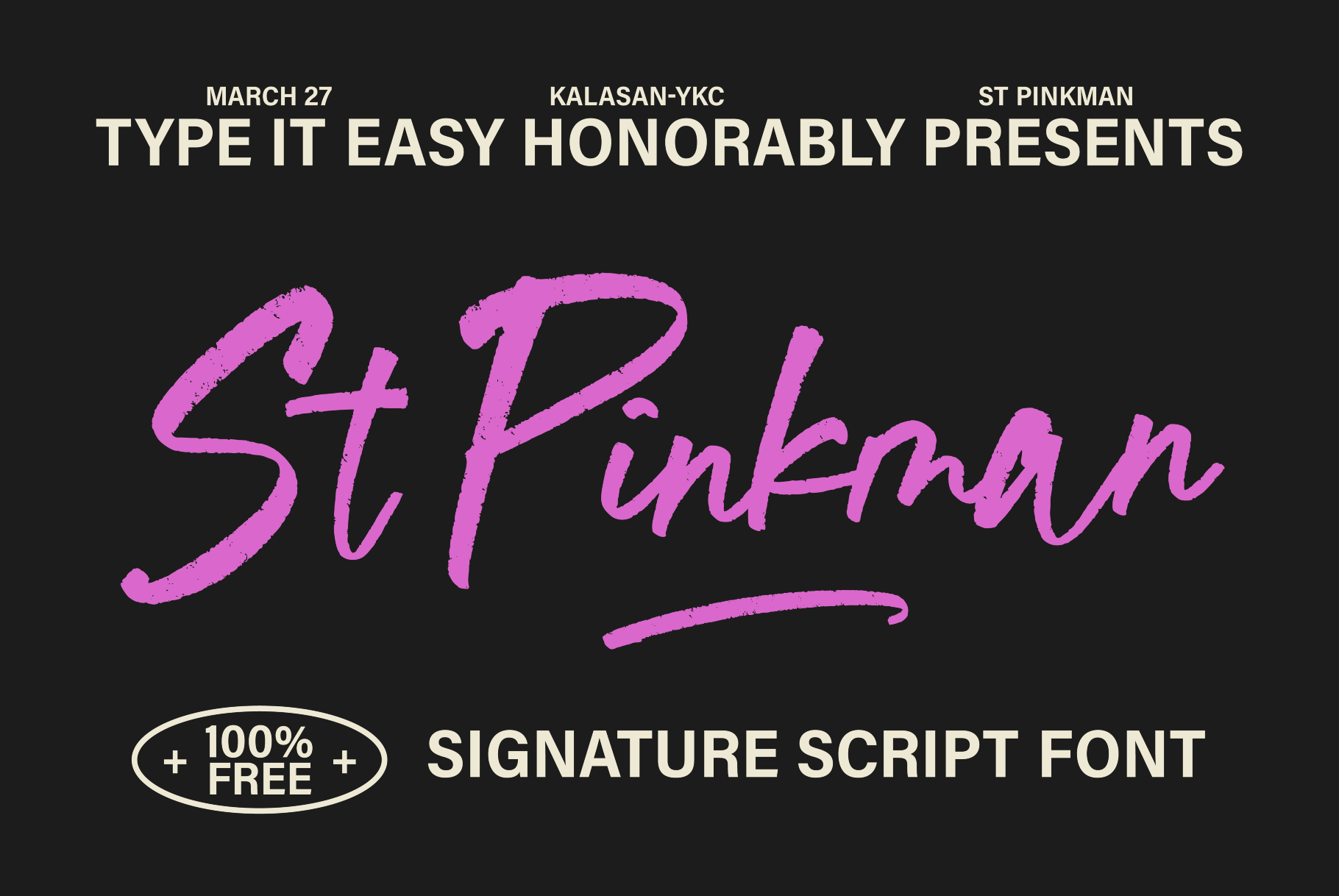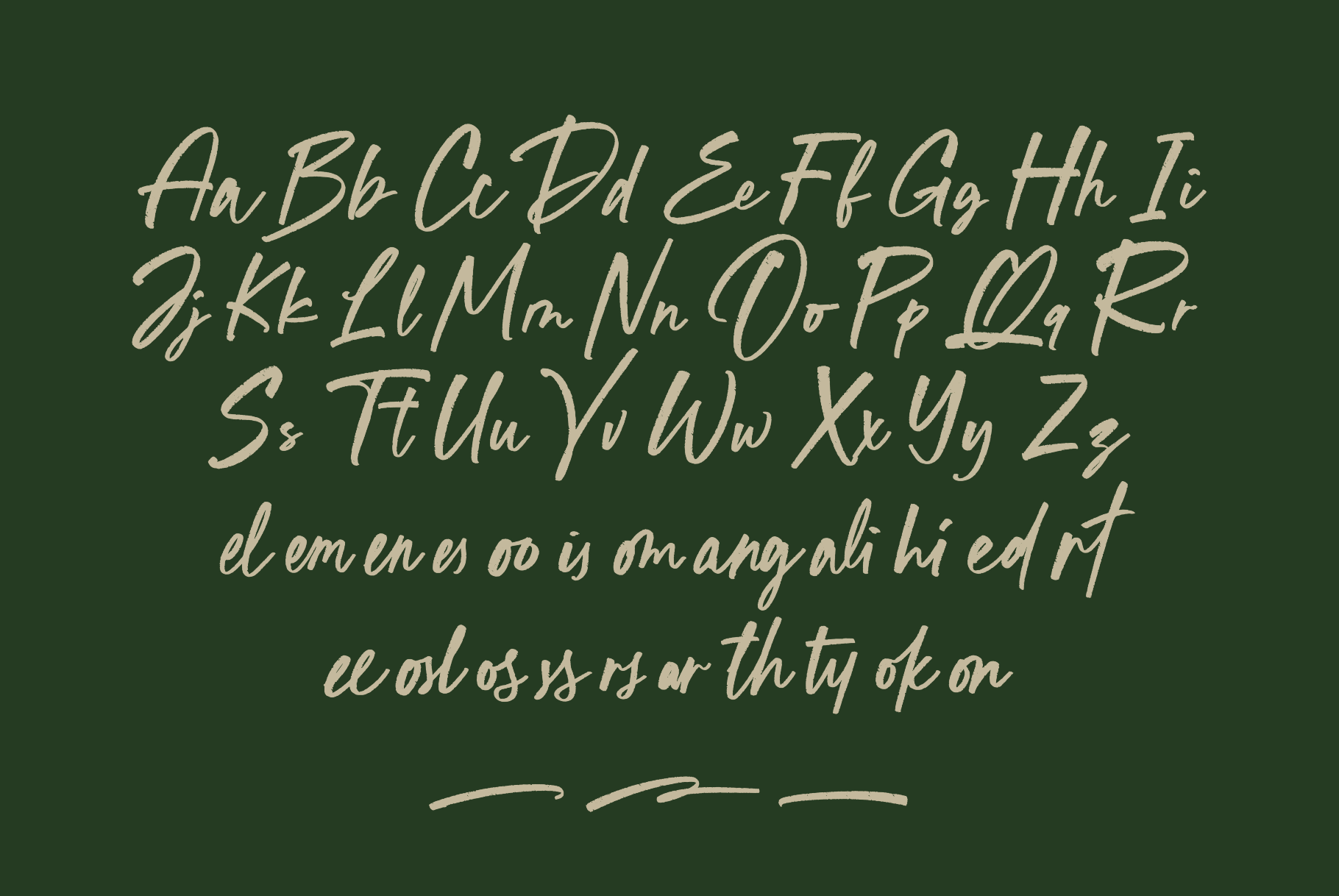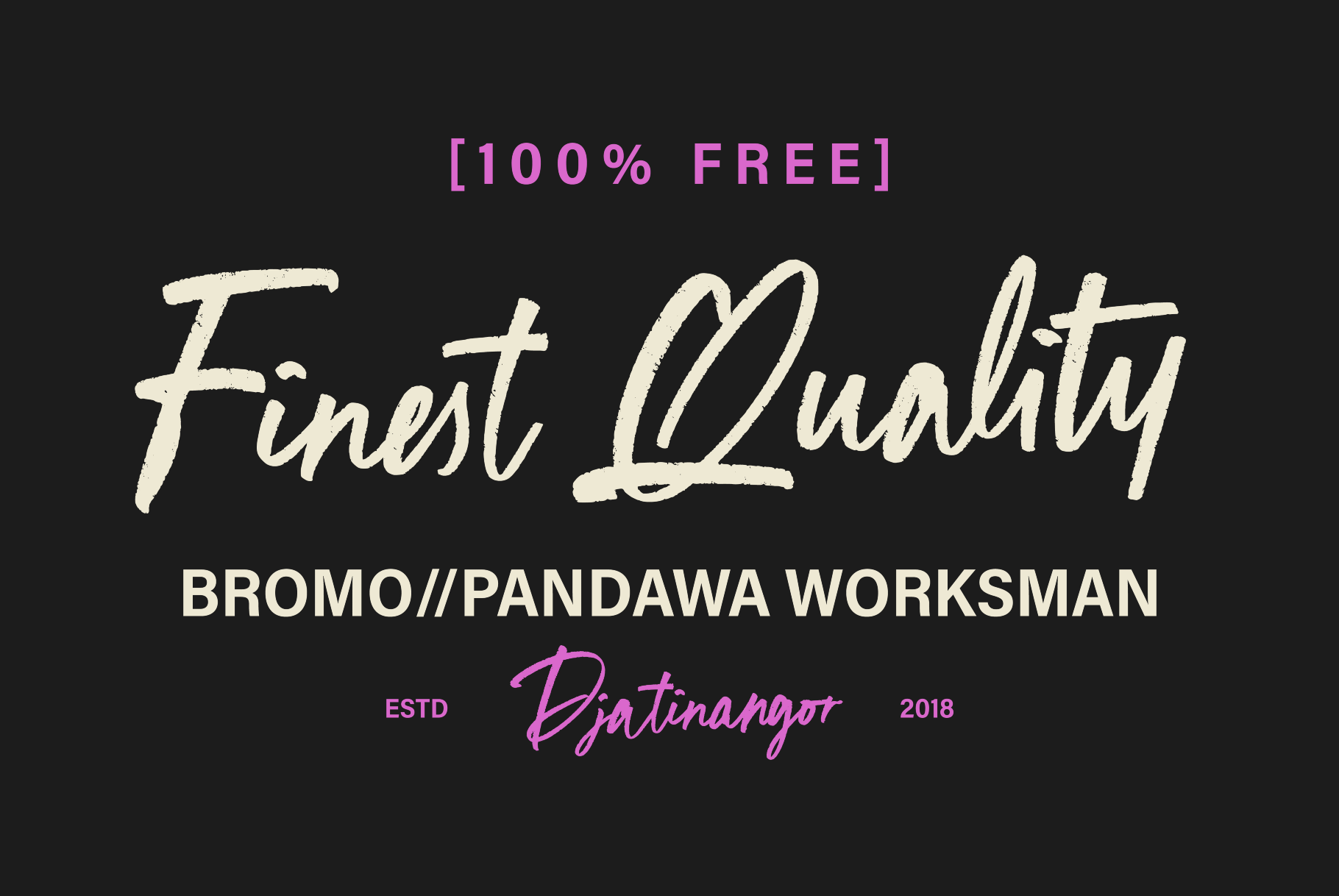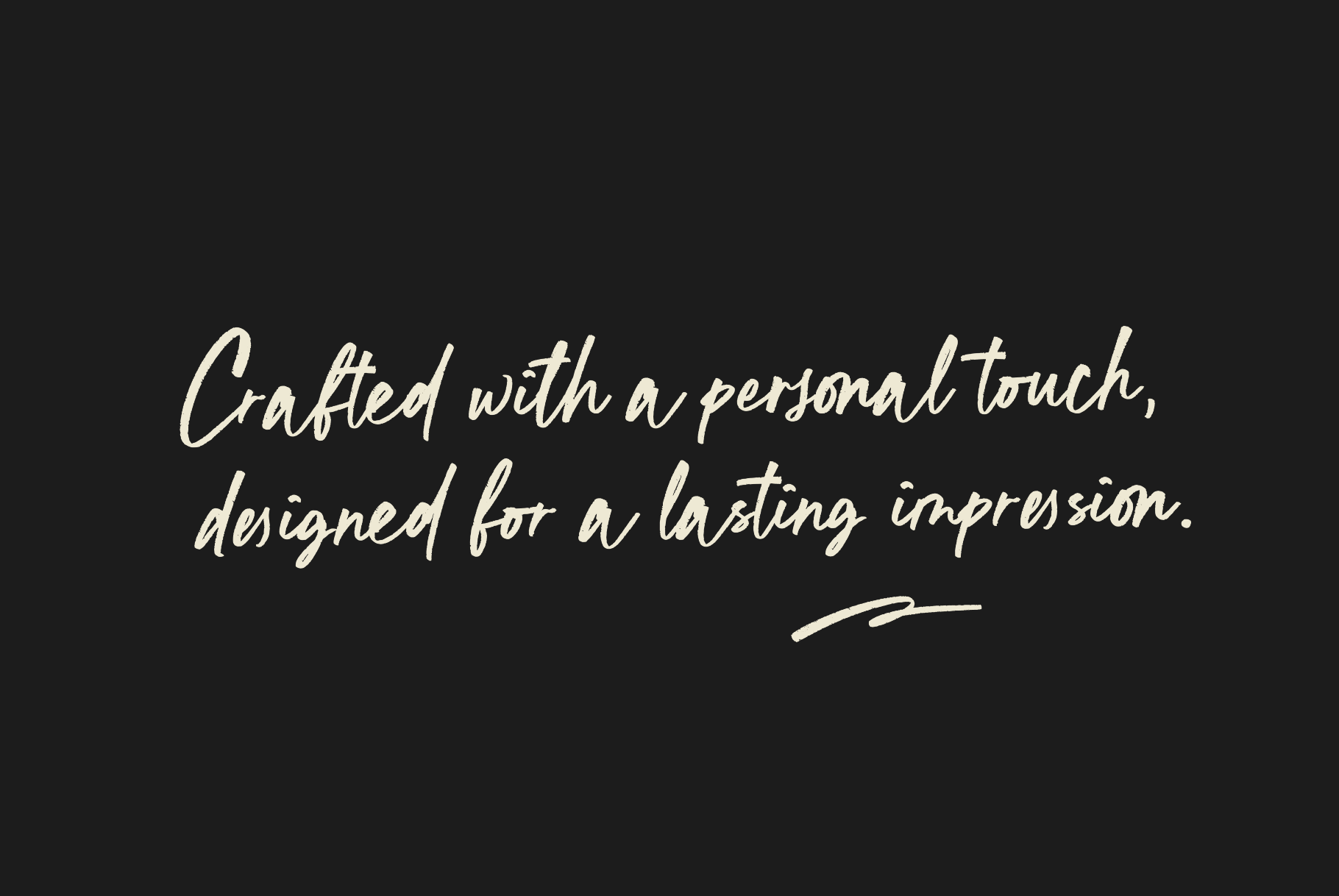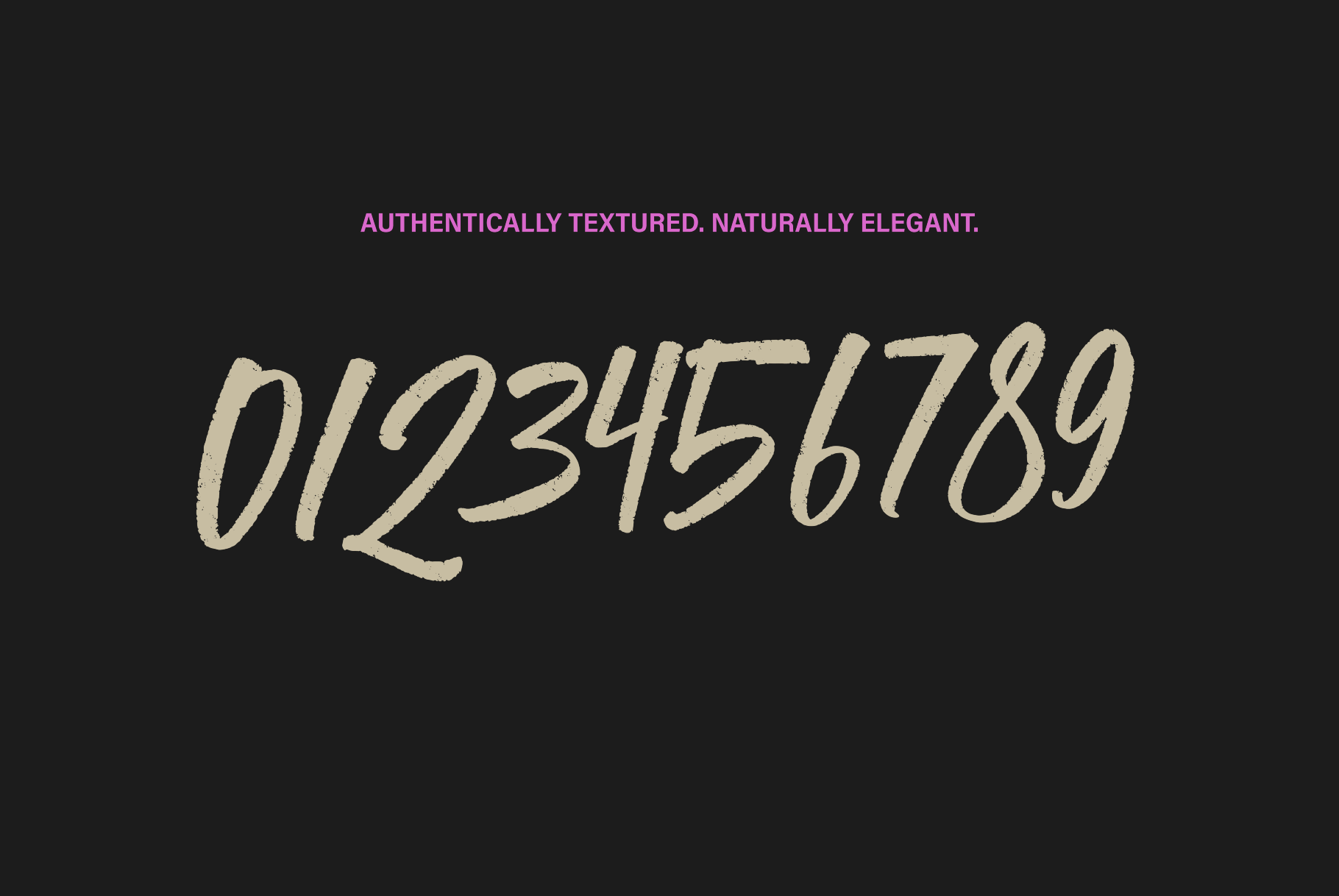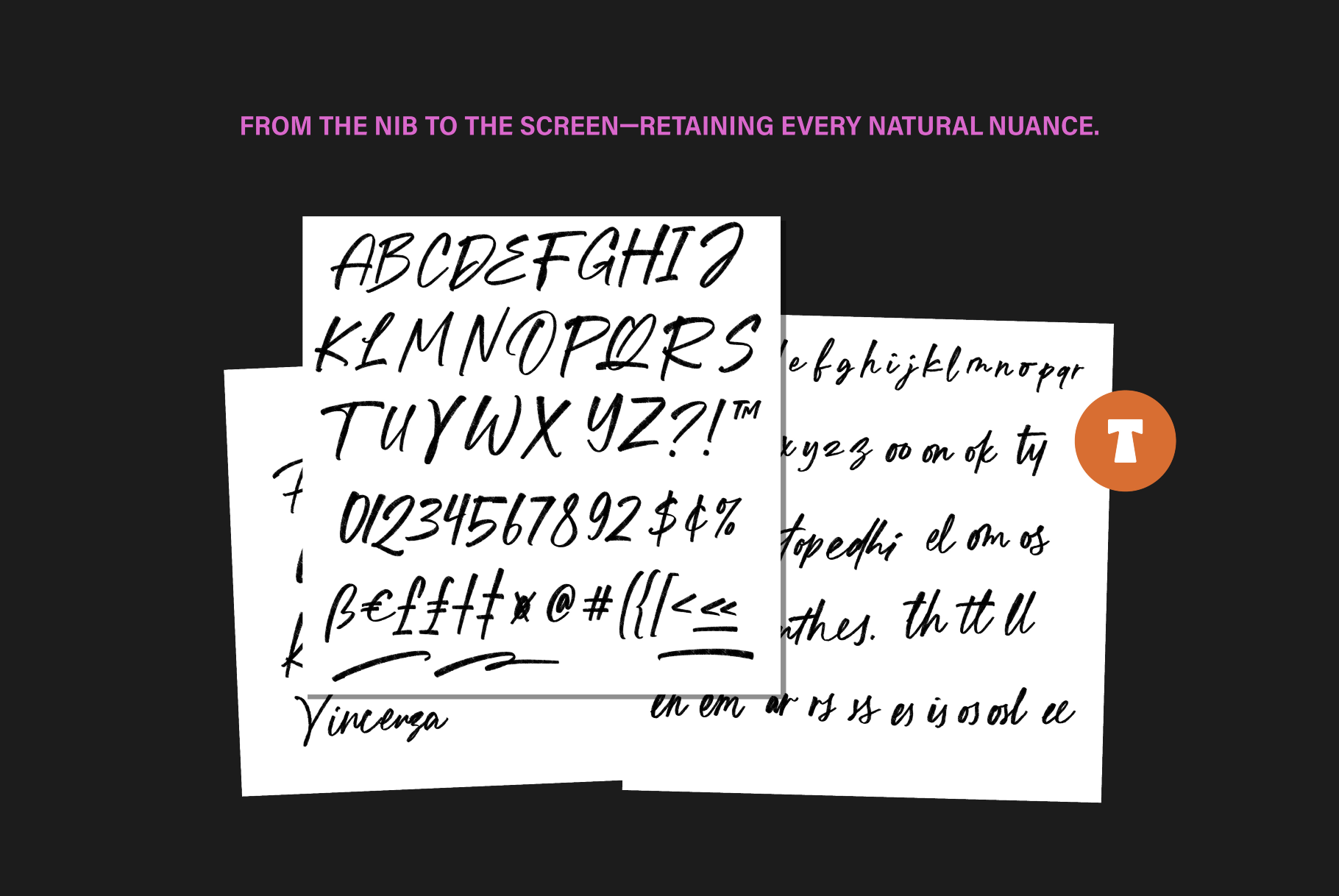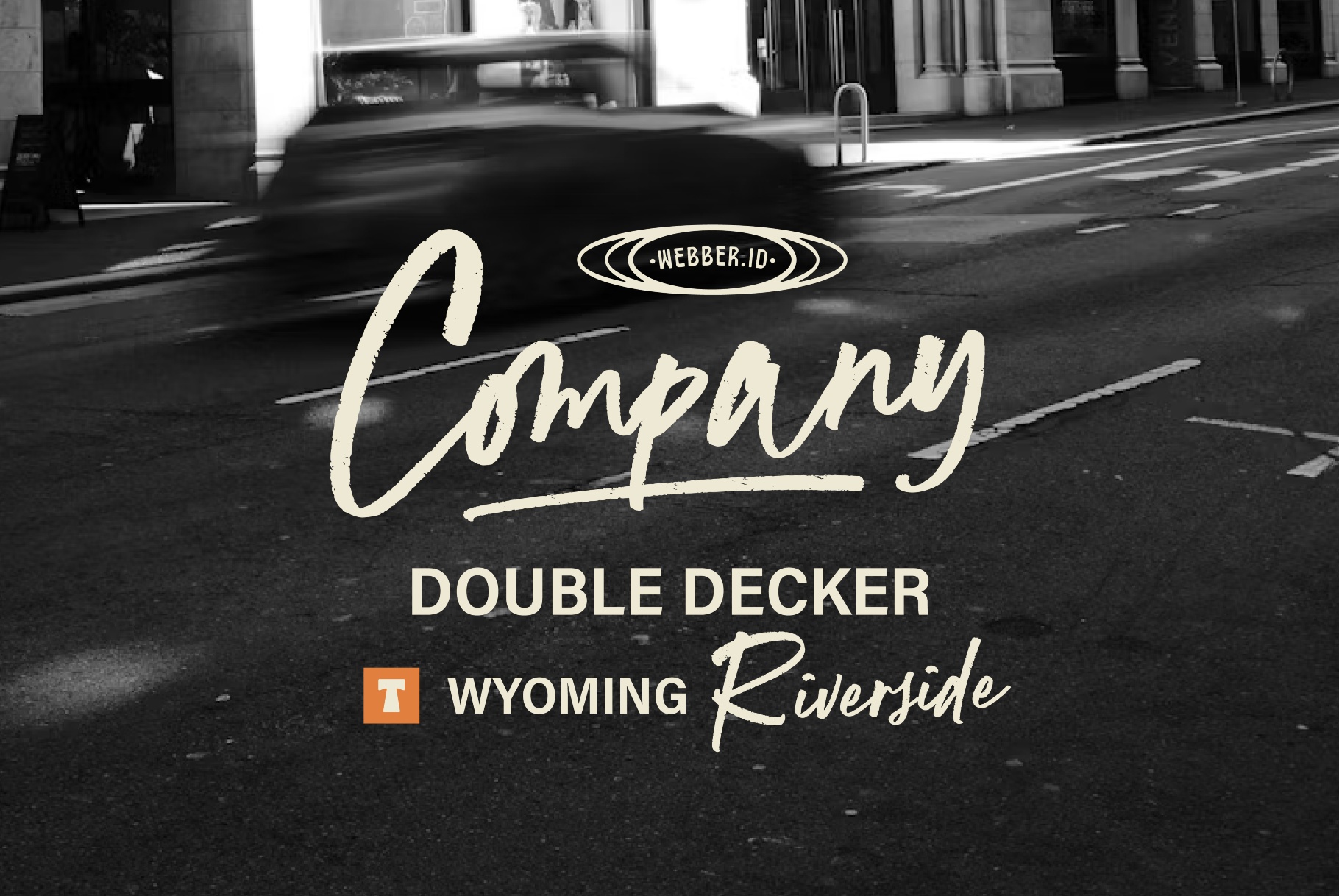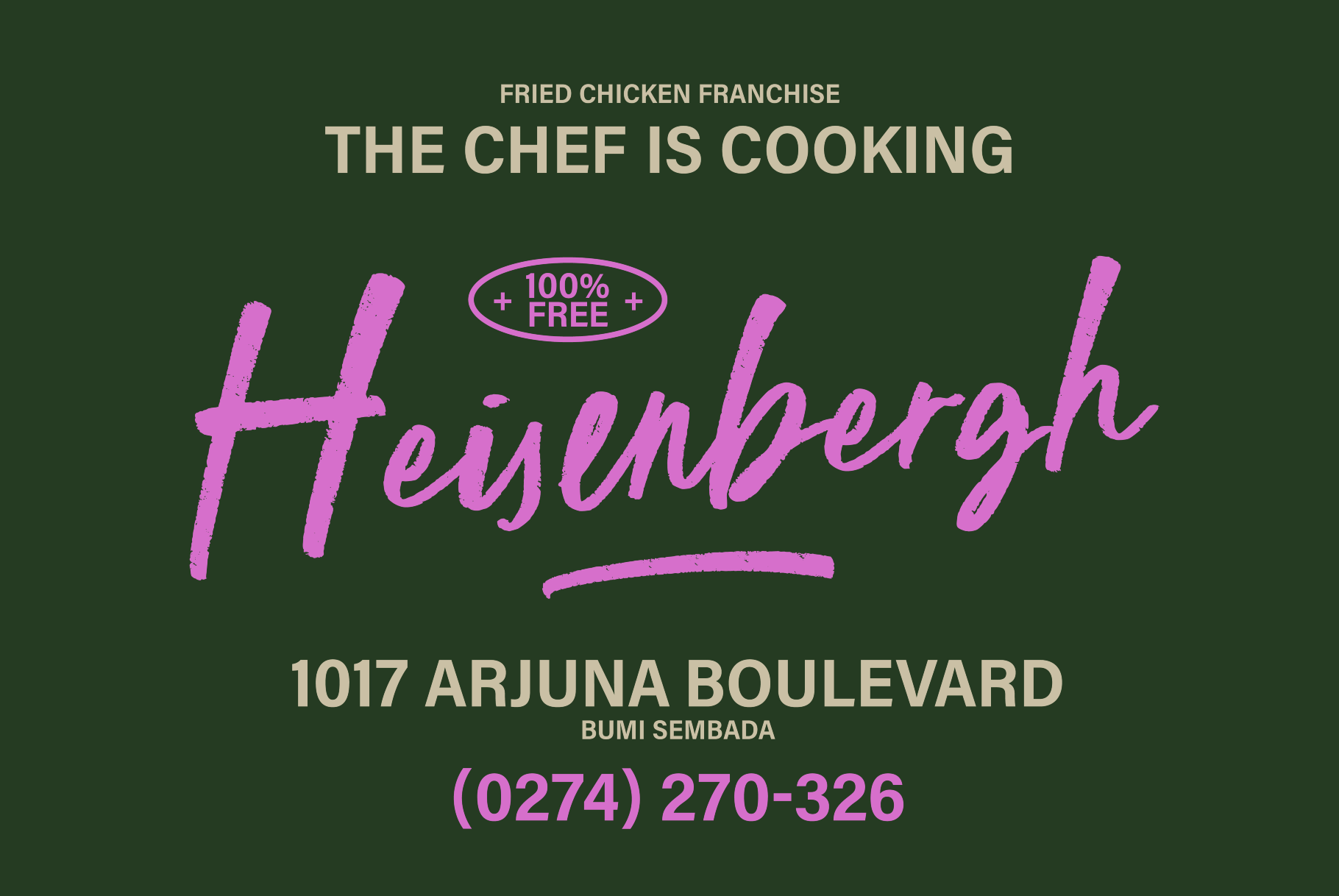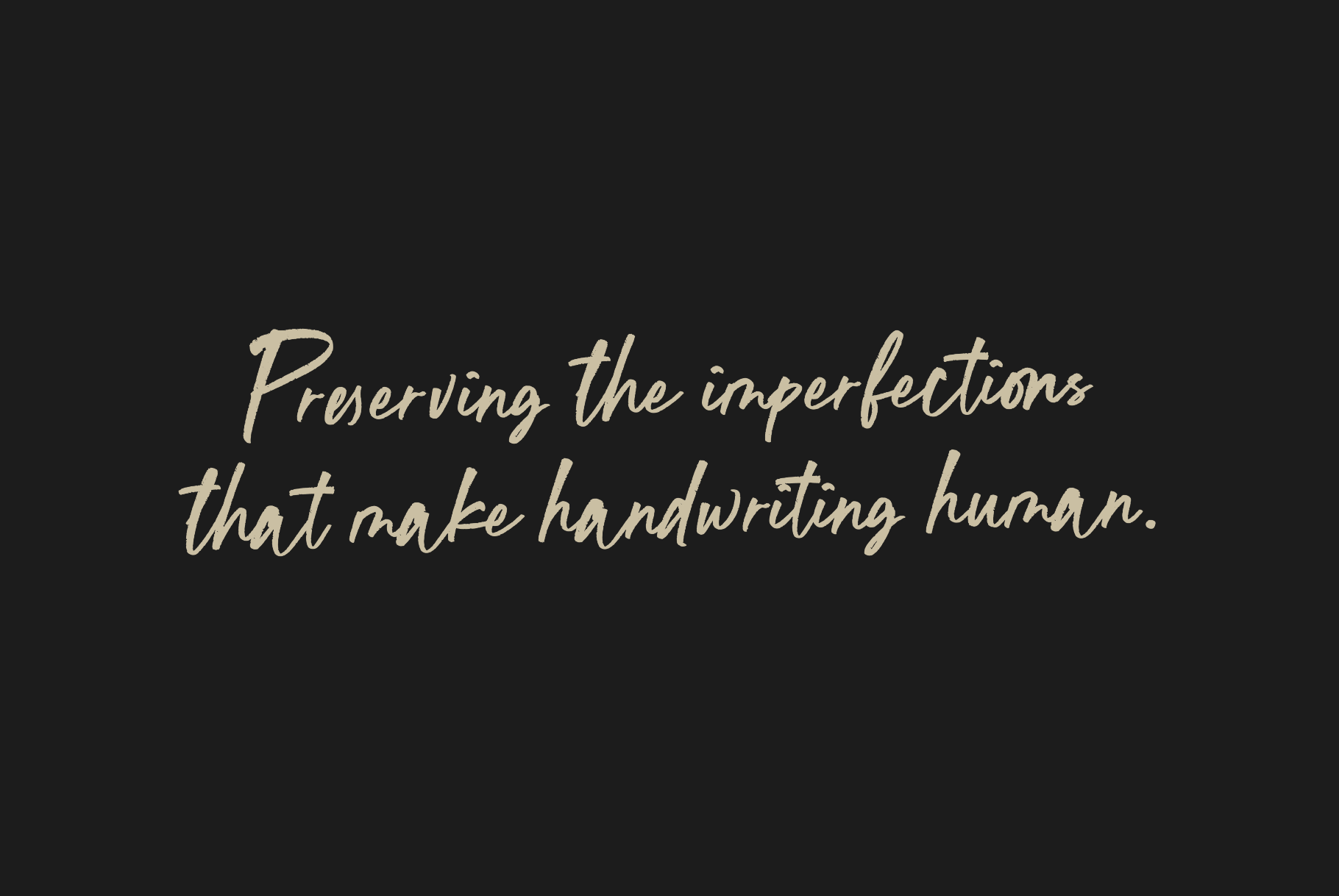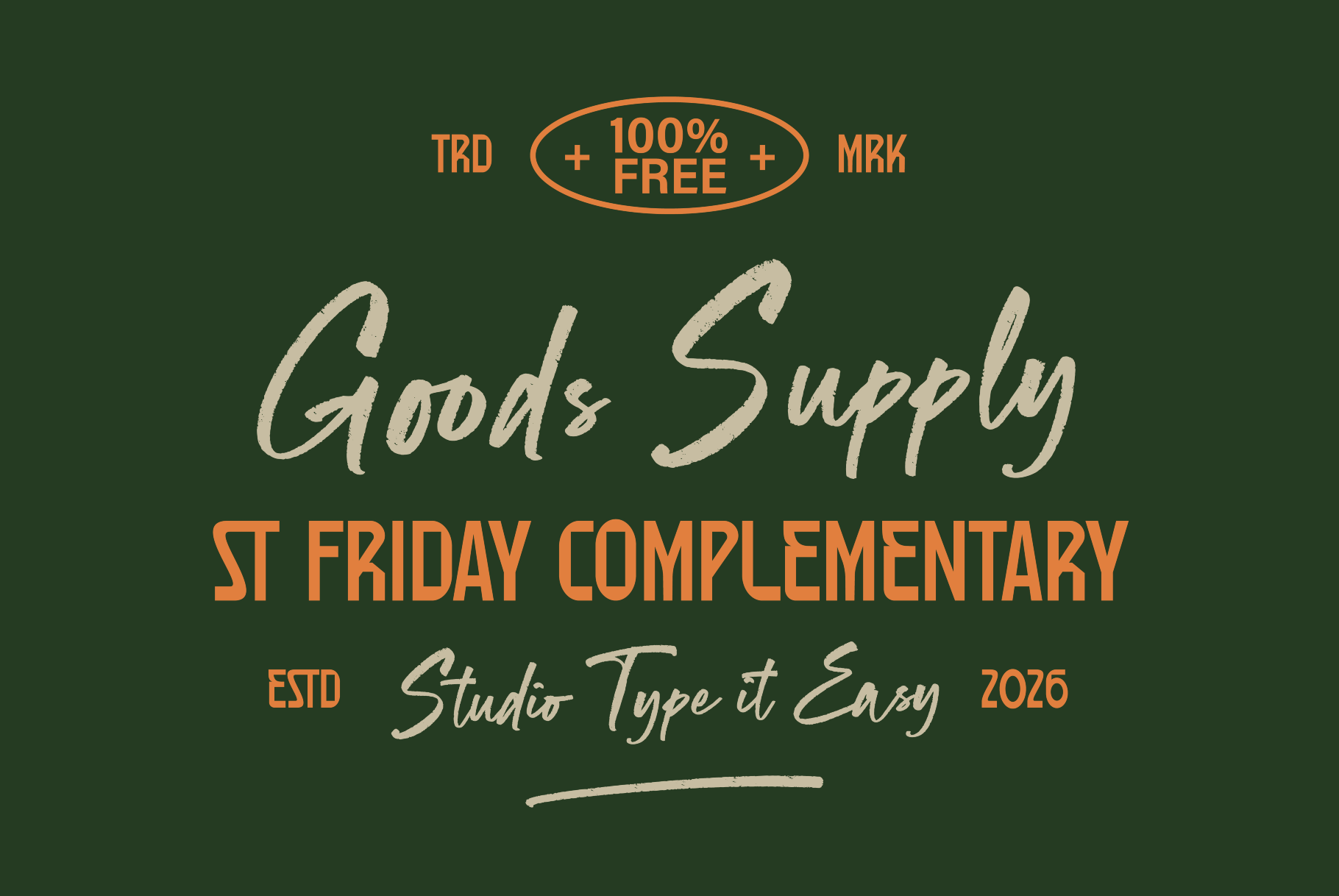
ST Pinkman - Handwritten Signature Script Font
ST Pinkman – Handwritten Signature Script Font is a raw and expressive typeface inspired by real handwriting and creative imperfection . Designed to feel natural and unpolished, this handwritten signature script font captures the authenticity of ink on paper, making it ideal for branding, logos, packaging, and personal projects that need a human touch.
With its textured strokes and fluid letterforms, ST Pinkman delivers a balance between casual spontaneity and confident style. It works beautifully in headlines, signatures, and creative layouts where personality and emotion matter most, adding depth and storytelling to every composition.
• Uppercase letters
• Lowercase letters
• Numerals and punctuation